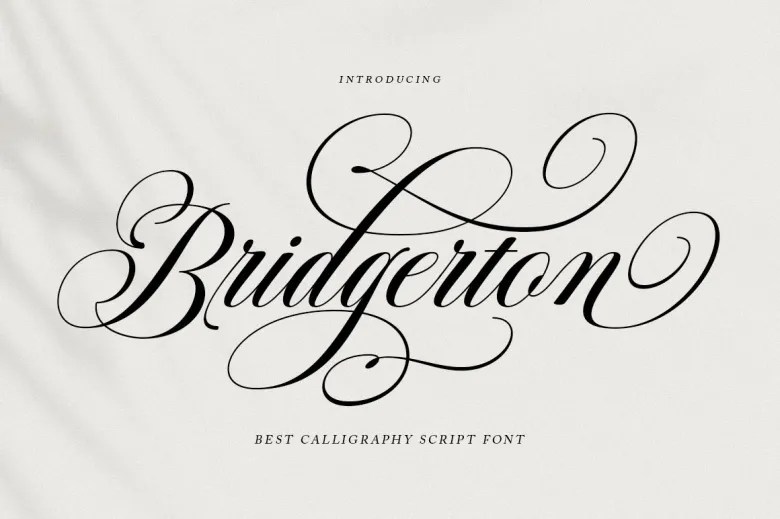
Bridgerton Script Font
Bridgerton The Script is a captivating calligraphy typeface that blends classic elegance with modern flair. This decorative script font features beautifully shifting characters and a copper-style design that exudes sophistication and class. Its clean lines and graceful, feminine shapes ensure effortless readability, thanks to its luxurious connections between letters.
Bridgerton Script is ideal for a variety of formal and high-end applications, including invitations, restaurant menus, logos, fashion and makeup products, stationery, books, novels, magazines, wedding cards, packaging labels, and various advertising materials. The font’s versatility makes it perfect for adding a touch of refined elegance to any design project.